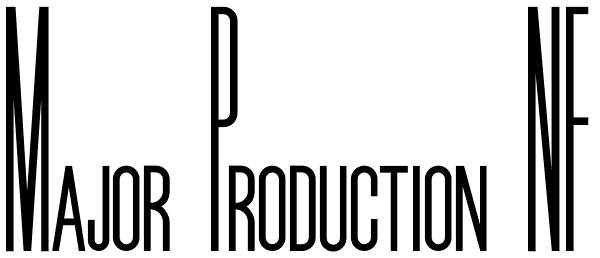
Major Production NF
This typeface was designed specifically for producing movie posters, as well as VHS and DVD packaging for them. The uppercase letters are ultracondensed, and the lowercase letters are small caps, approximately a third the size of the uppercase. Also...